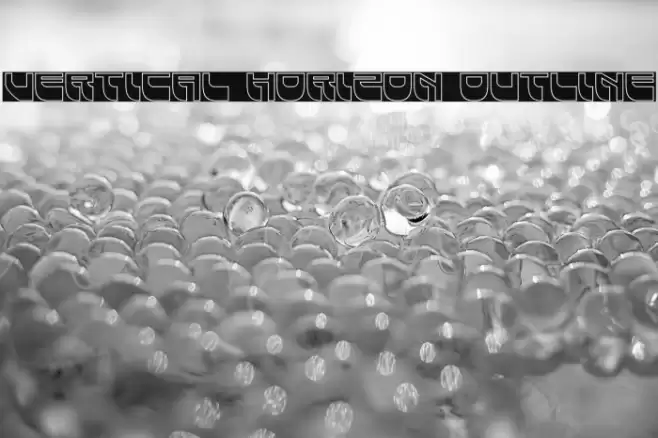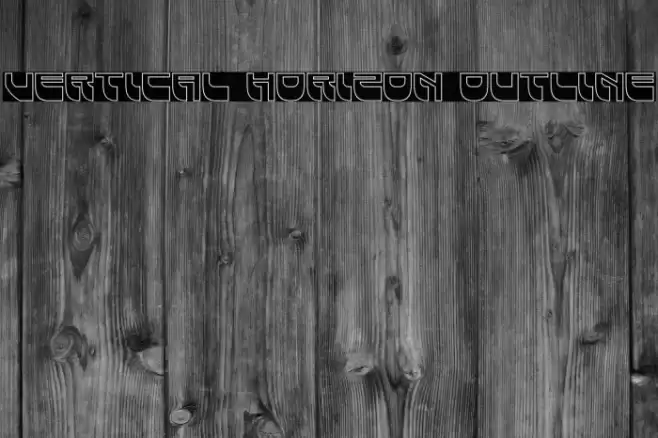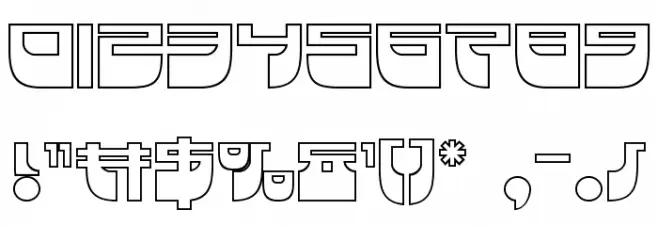
Vertical Horizon Outline Font
Vertical Horizon Outline Description
This font features a unique outline style with a futuristic and geometric design. Each character is crafted with precision, showcasing sharp angles and clean lines that create a sense of modernity and innovation. The uppercase and lowercase letters maintain a consistent aesthetic, with a bold presence that stands out. Numbers and special characters are designed to complement the alphabet, ensuring a cohesive look across all text. The outline nature of the font gives it a lightweight appearance, making it suitable for designs that require a modern and edgy touch.
A futuristic, geometric outline font with sharp angles and clean lines from Uncategorized fonts.
- Proposed Projects: Ideal for sci-fi themed designs, tech branding, modern posters, and digital artwork.